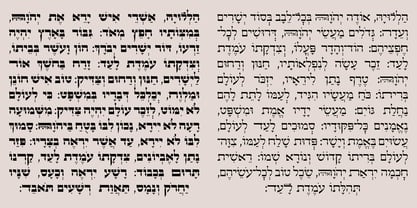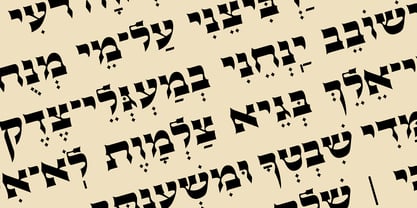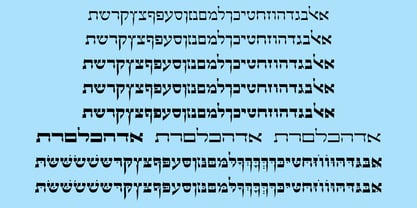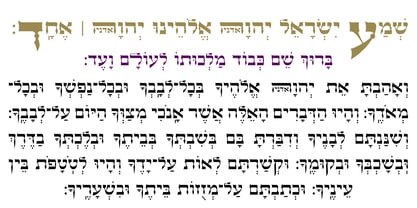
Hebrew Efraim Std
von Samtype
Die Schriftfamilie Hebrew Efraim Std wurde von Sami Artur Mandelbaum entworfen und von Samtype veröffentlicht. Hebrew Efraim Std enthält 5 Stile und Familienpaketoptionen.
Beautiful font, good for posters and small books and folders.
This is a complete font with all Nikud and also shevana, kamatz katan, dagesh hazak, and holam chaser.